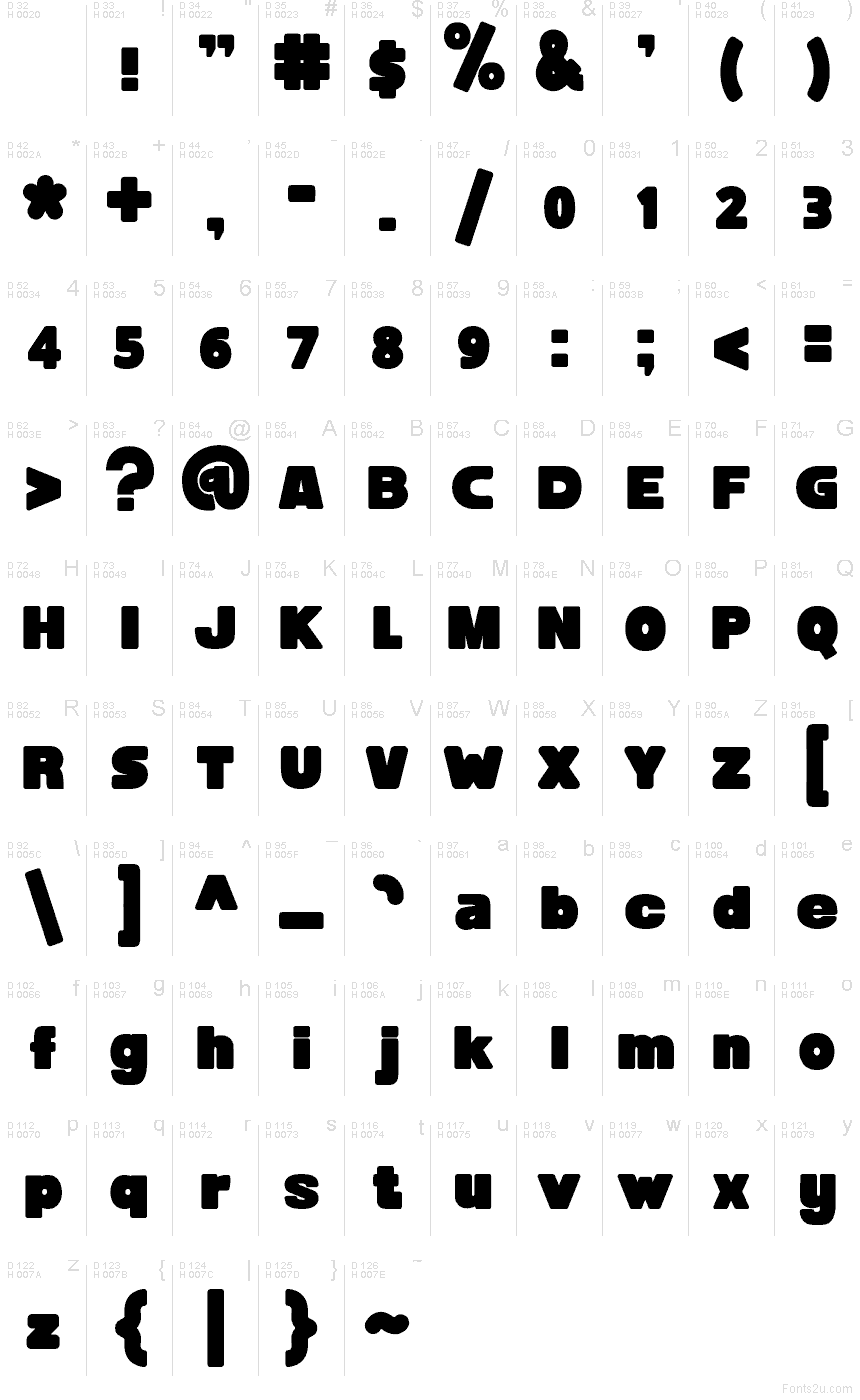
Luemu font by Tokokoo Studio is a free cartoon display typeface with chunky, upright letters and soft, pillowy corners that feel almost squeezable. The strokes are thick and confident, giving every word a bold, toy-like presence that pops instantly in busy layouts. Its clean, even spacing keeps the fun under control, so headlines stay loud and legible without turning messy or chaotic.
Using Luemu, you can bring friendly energy to kids’ book covers, classroom posters, birthday invitations, toy packaging, playful logos, and YouTube thumbnails. This free font shines at large sizes where its rounded shapes can really show, and it pairs easily with a simple geometric sans for smaller supporting text.